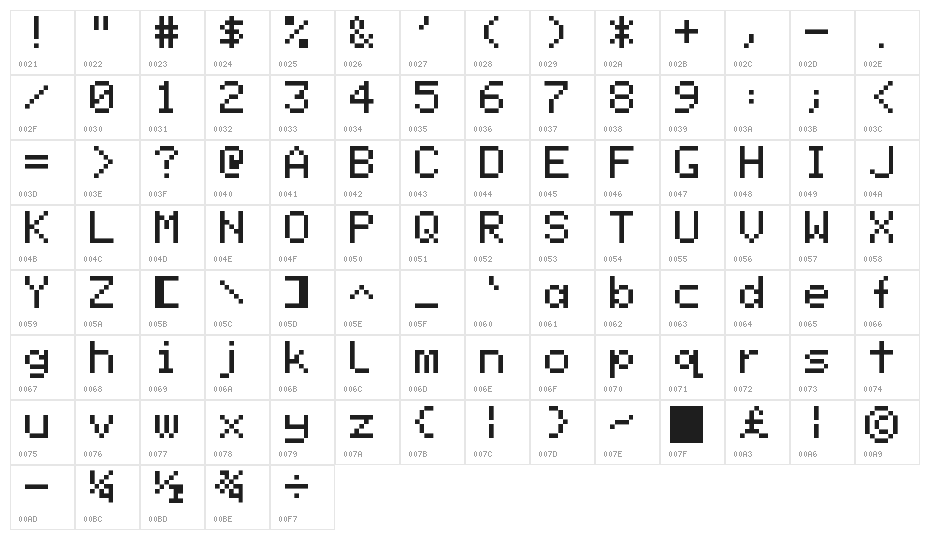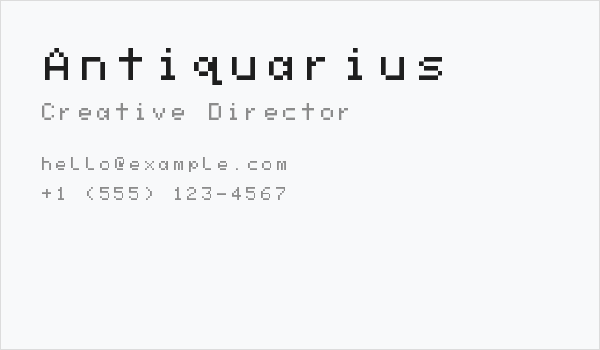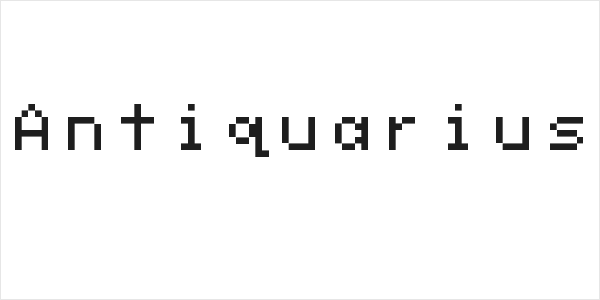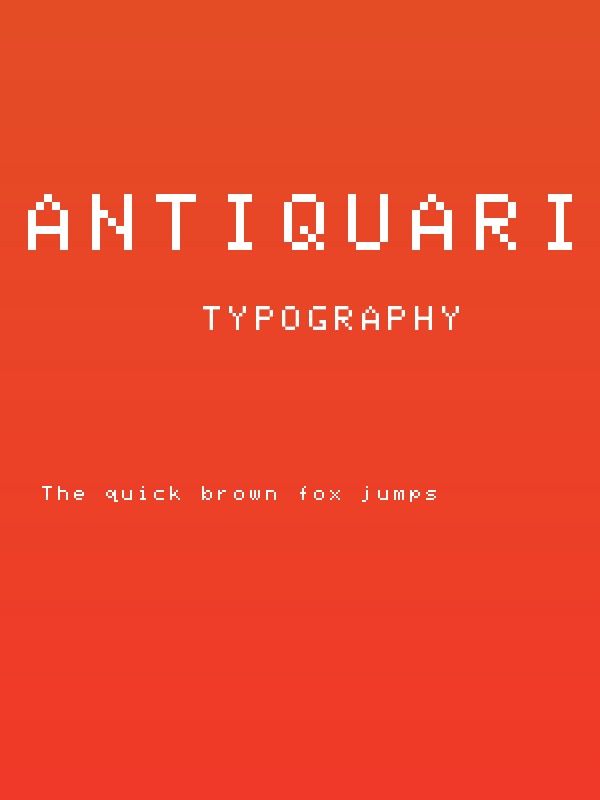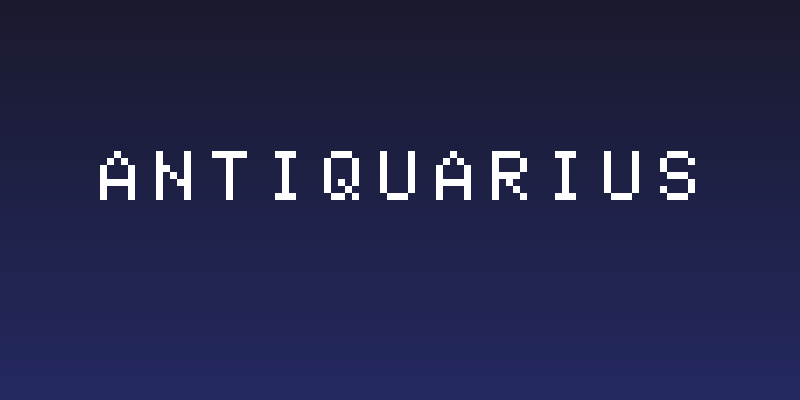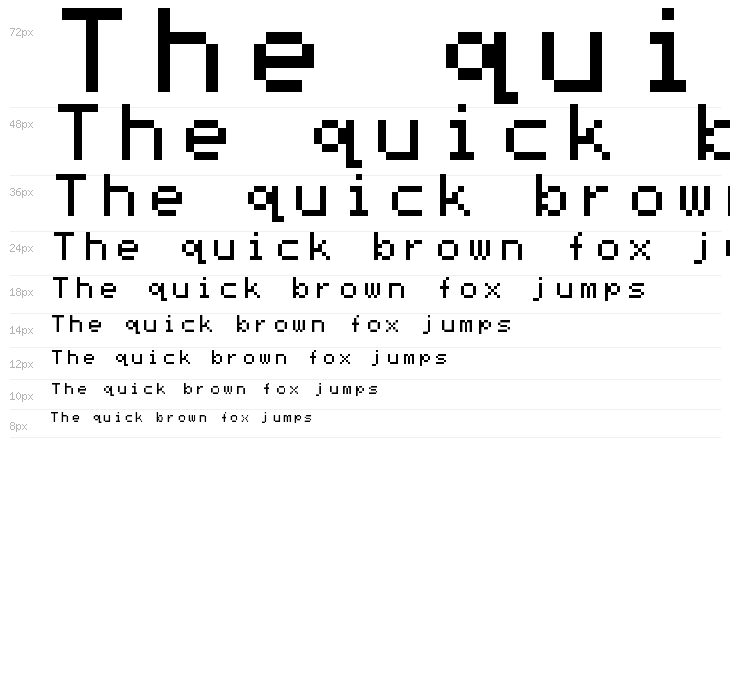
Antiquarius Font
Antiquarius Description
This font features a pixelated, monospaced design reminiscent of early digital displays and retro video games. Each character is constructed with a grid-like precision, giving it a distinctly digital aesthetic. The uniformity in character width and height contributes to its structured appearance, making it ideal for applications where alignment and readability are crucial. The font's simplicity and geometric form evoke a sense of nostalgia, while its clarity ensures legibility even at smaller sizes. The characters are evenly spaced, providing a balanced and consistent look across all text.
Overall StyleRetro, Digital
Use CaseHeadlines, Coding, Digital displays
Proposed ProjectsIdeal for retro video game designs, digital art projects, coding interfaces, and any project seeking a nostalgic digital look.